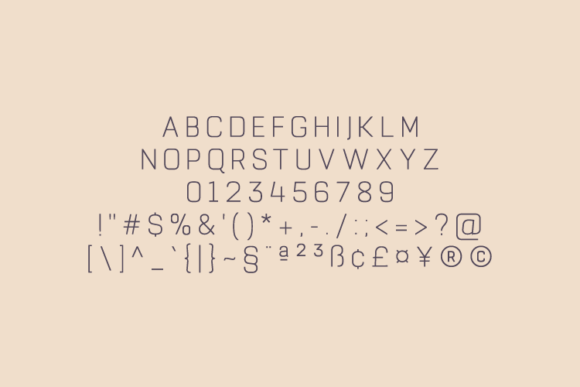
The Gercoff Light Font: A Timeless Choice for Designers
I’ll never forget the struggle I faced while working on a vintage-themed logo design project. My client wanted a font that was clean, simple, and reminiscent of a bygone era. I scoured the internet, tried out countless fonts, but nothing seemed to fit the bill. That’s when I stumbled upon the Gercoff Light Font. It was love at first sight! ✨ The smooth edges, the elegant sans-serif design, and the versatility of the font made it an instant favorite. In this article, I’ll share my experience with the Gercoff Light Font, its features, and how to make the most of it in your designs.
- ✅ Clean and simple design: Gercoff Light Font boasts a sleek, uncluttered design that works beautifully for vintage logo designs, headers, and small amounts of text.
- ✨ Smooth edges: The font’s smooth edges give it a sophisticated look that’s perfect for high-end designs.
- ✅ Versatile: Gercoff Light Font can be used for a wide range of design projects, from logos and branding to packaging and advertising.
While Gercoff Light Font is an excellent choice, it’s not without its quirks. ⚠️ Some users may find that the font lacks a bit of character, which can make it feel a tad bland in certain contexts. Additionally, the font’s simplicity may not make it the best choice for body text or lengthy paragraphs. 🤔
The Gercoff Light Font was designed with a passion for vintage aesthetics and a love for clean typography. The font’s creator drew inspiration from classic sans-serif fonts of the past, refining them to create a modern, elegant design. The result is a font that’s both timeless and versatile, perfect for designers looking to add a touch of sophistication to their work.
| Font Name | Gercoff Light Font |
| Author | A Christie |
Q: What is the Gercoff Light Font?
A: The Gercoff Light Font is a clean and simple vintage sans-serif font with smooth edges, perfect for vintage logo designs, headers, and small amounts of text.
Q: Is Gercoff Light Font suitable for body text?
A: While Gercoff Light Font is an excellent choice for headings and titles, it may not be the best choice for body text or lengthy paragraphs due to its simplicity and lack of character.